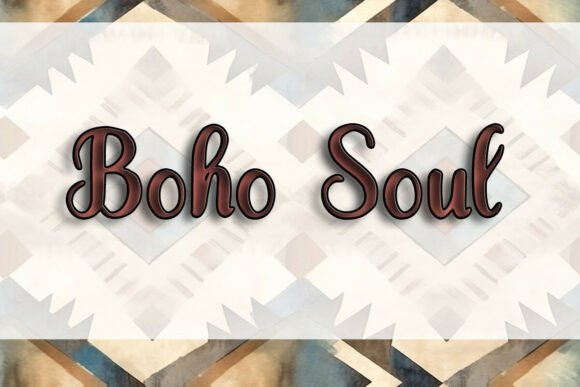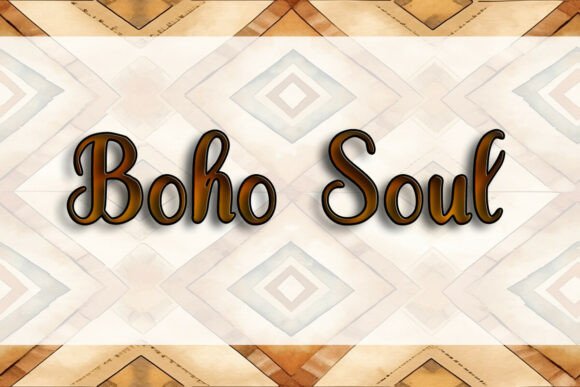
Discover the Captivating World of Boho Soul Font
I’ll never forget the moment I stumbled upon the Boho Soul font while working on a DIY project for a client’s Bohemian-inspired clothing line. I was on a mission to find the perfect font that would capture the essence of their brand, and after hours of searching, I finally found it. The Boho Soul font was like a breath of fresh air – its unique, artistic vibe instantly resonated with me, and I knew I had found the one.
A Personal Review: What I Love About Boho Soul
So, what makes Boho Soul so special? Here are a few things that I absolutely love about this font:
- ✨ Unique Character: Each character in the Boho Soul font tells a story, making it perfect for creative projects that require a personal touch.
- ✅ Versatility: This font is incredibly versatile and can be used for a wide range of projects, from branding initiatives to greeting cards.
- 💫 Bohemian Charm: The Boho Soul font effortlessly captures the essence of Bohemian style, adding a touch of warmth and kinship to any design.
While Boho Soul is an amazing font, there are a few quirks to be aware of:
- ⚠️ Legibility at Small Sizes: Like many script fonts, Boho Soul can be a bit tricky to read at small sizes. It’s best to use it at larger sizes to ensure maximum legibility.
- 🤔 Glyph Limitations: While Boho Soul has a wide range of glyphs, it may not have every special character or symbol you need. Be sure to check the font’s capabilities before using it for a project.
The Story Behind Boho Soul
Boho Soul was designed with the creative spirit in mind. Its creator, a passionate typographer, wanted to capture the essence of Bohemian style and infuse it into a font that would inspire artists and designers to push the boundaries of their creativity. With Boho Soul, you can add a touch of warmth and kinship to any design, from branding initiatives to greeting cards.
| Font Name | Boho Soul Font |
| Author | Heidi Vargas-Smith |
| What is the best way to use Boho Soul for branding initiatives? | Boho Soul is perfect for branding initiatives that require a touch of Bohemian charm. Use it for logos, business cards, or packaging designs to add a unique, artistic vibe. |
| Is Boho Soul suitable for body text? | While Boho Soul is a beautiful font, it’s best suited for headlines or short paragraphs. For body text, consider using a more legible font to ensure maximum readability. |
With Boho Soul, the possibilities are endless. Whether you’re a designer, crafter, or creative hobbyist, this font is sure to inspire you to create something truly unique and captivating. So, what are you waiting for? Dive into the world of Boho Soul and discover the transformative power of this incredible font.